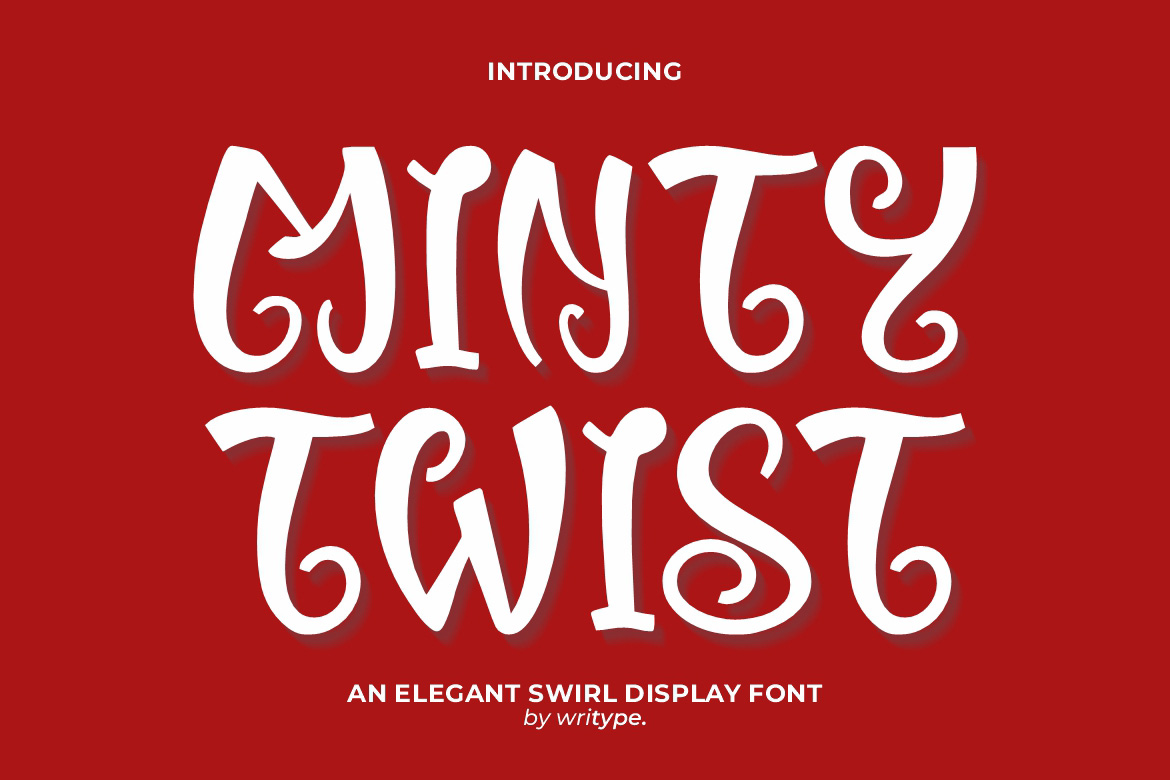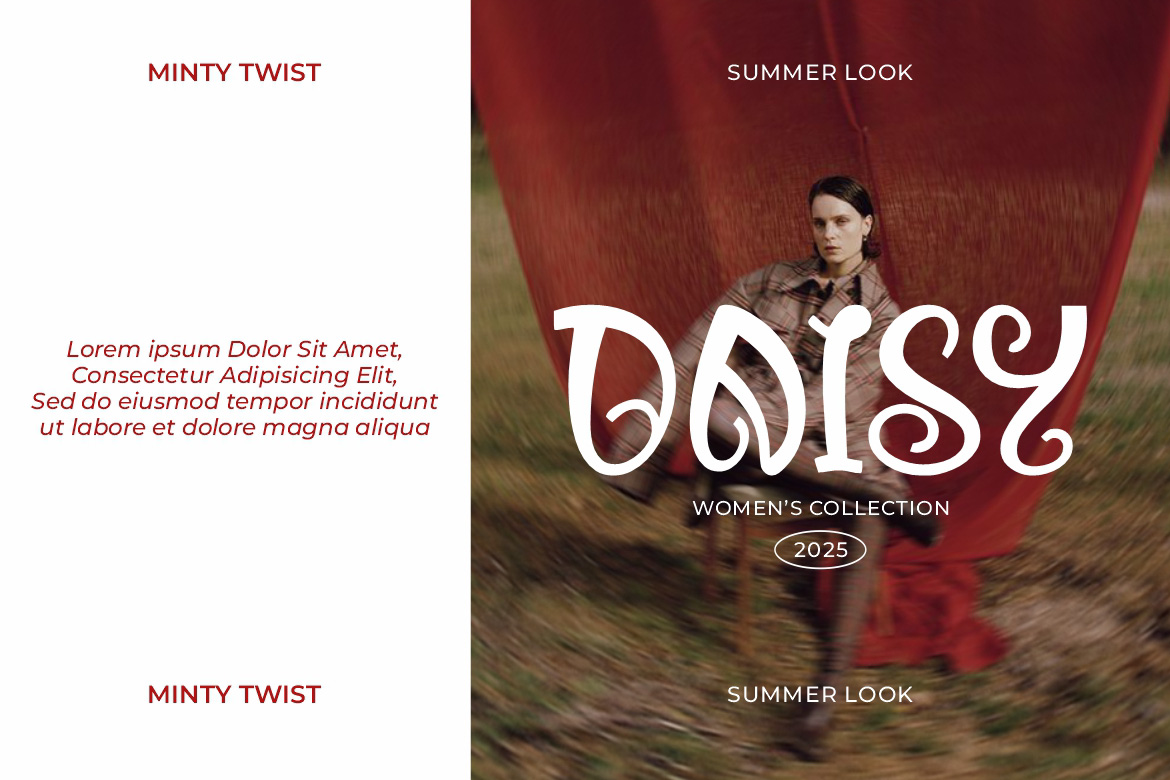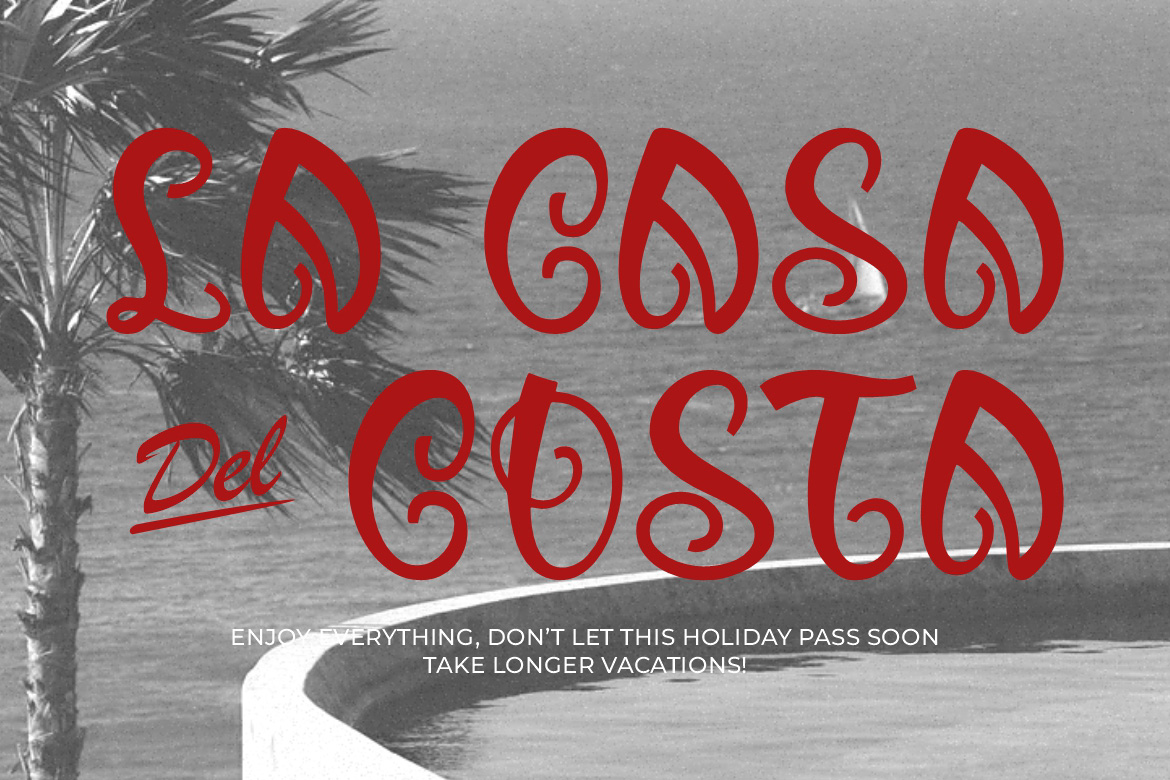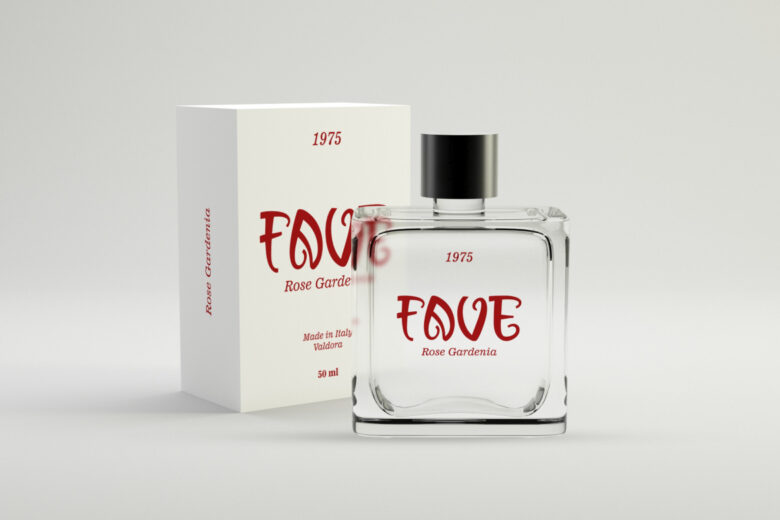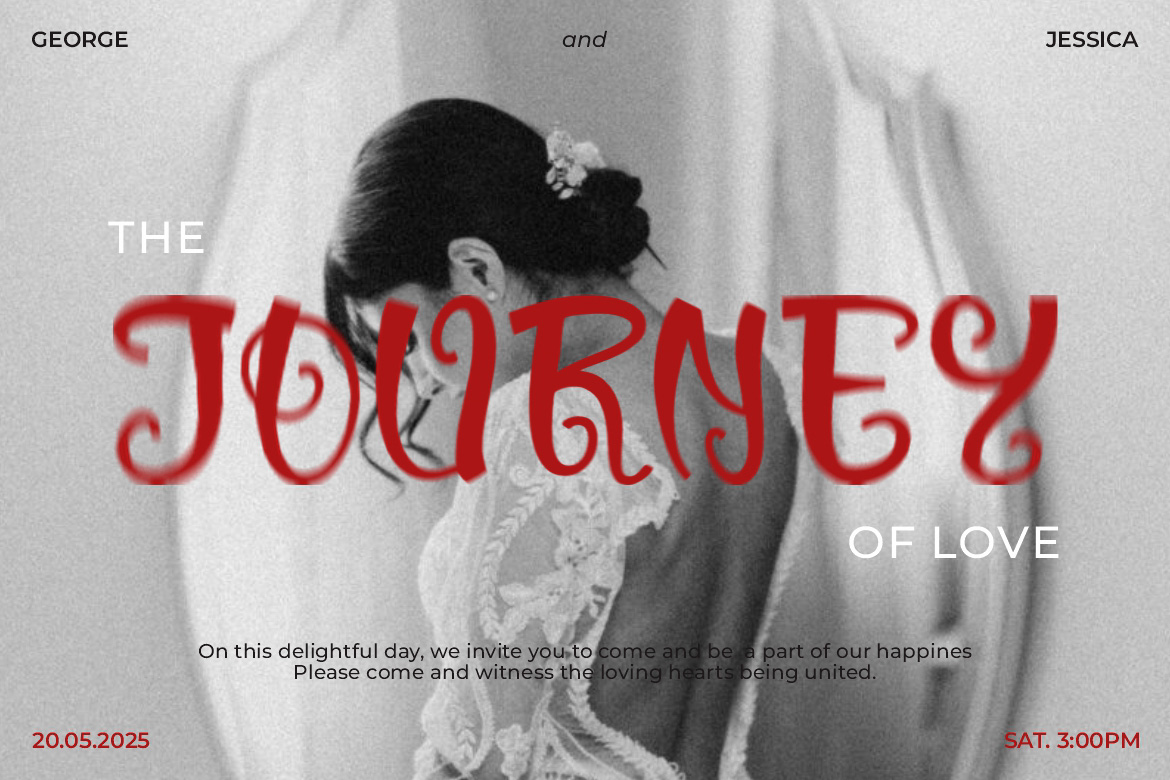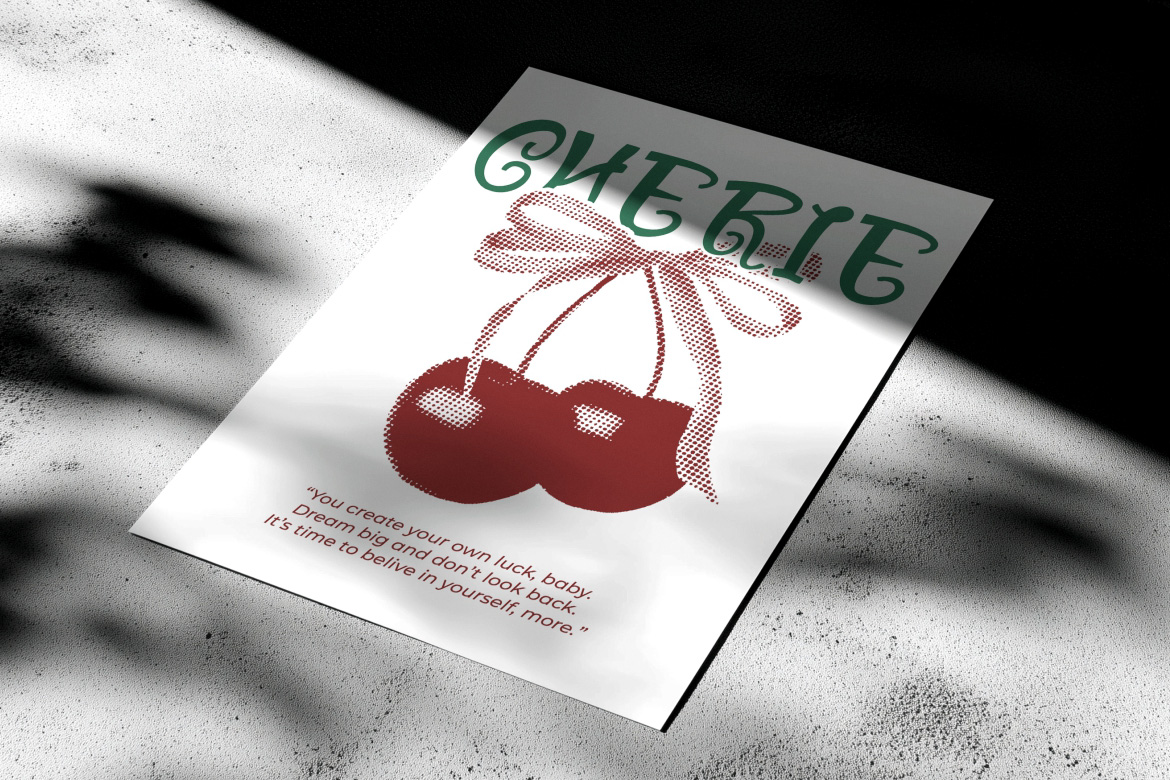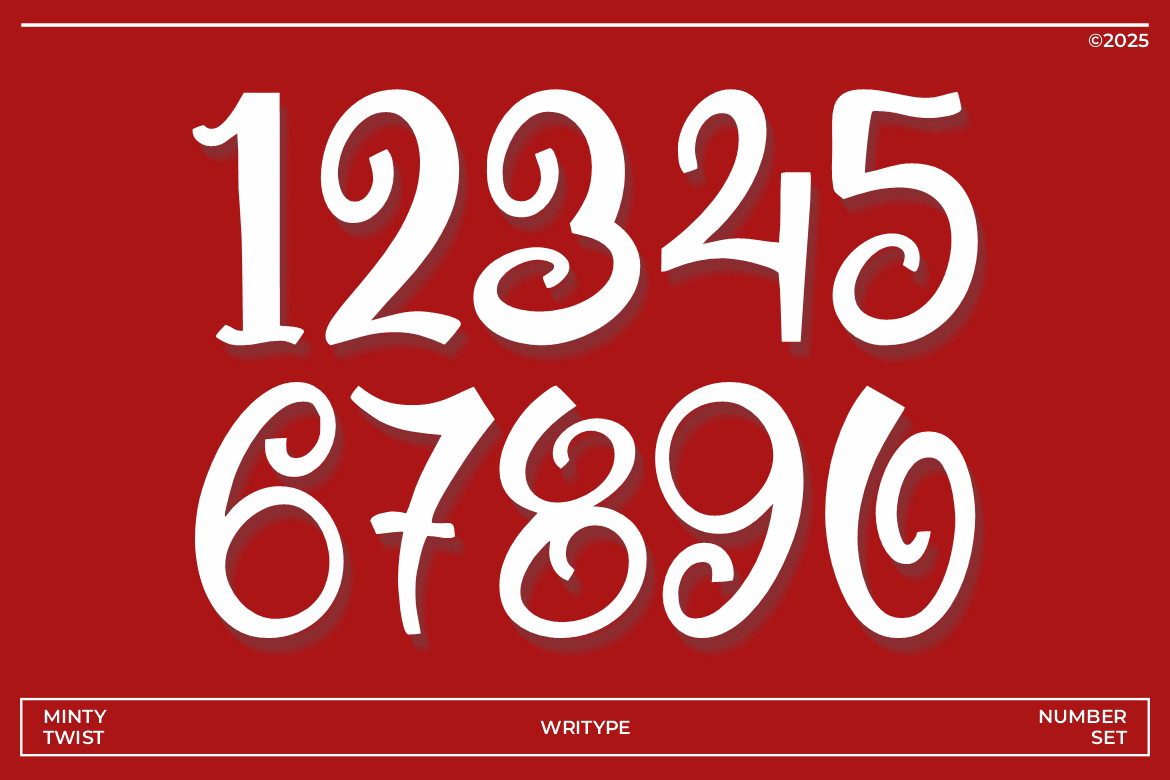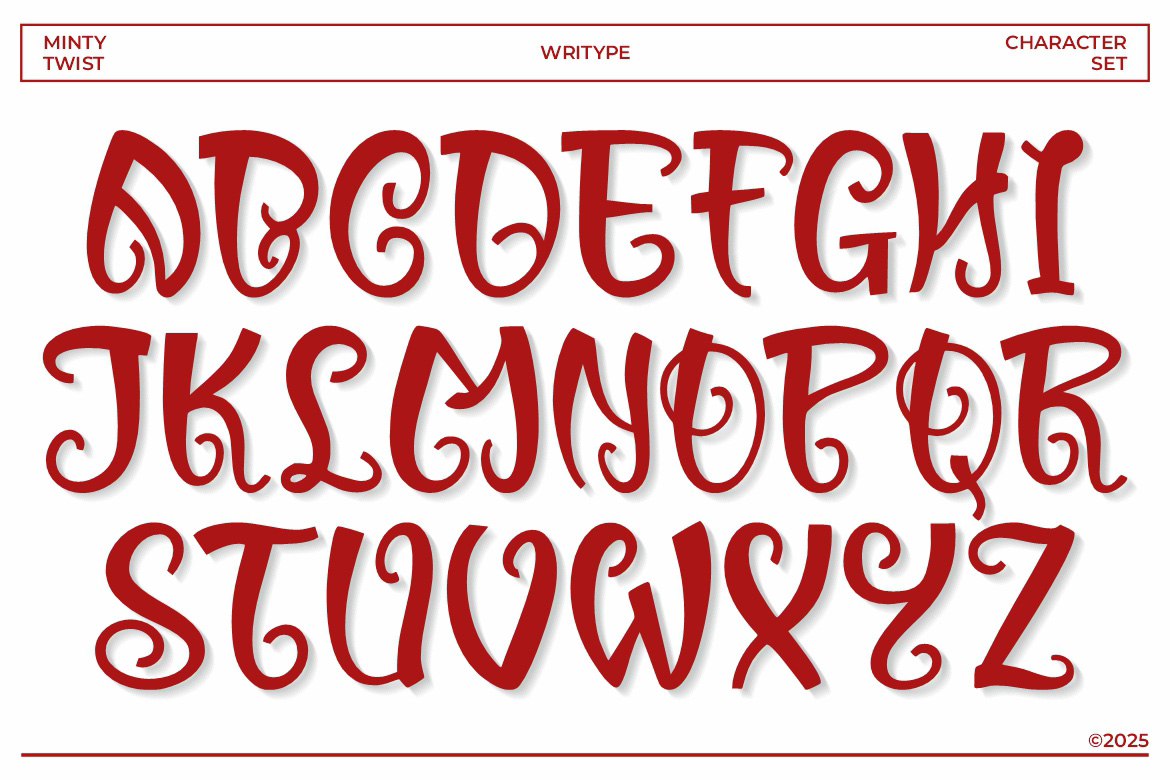
WR Minty Twist
WR Minty Twist – Playful Curvy Display Font
WR Minty Twist is an elegant swirl display font featuring playful curves and whimsical details. Its flowing letterforms bring a charming, festive touch, perfect for invitations, branding, packaging, and cheerful designs.